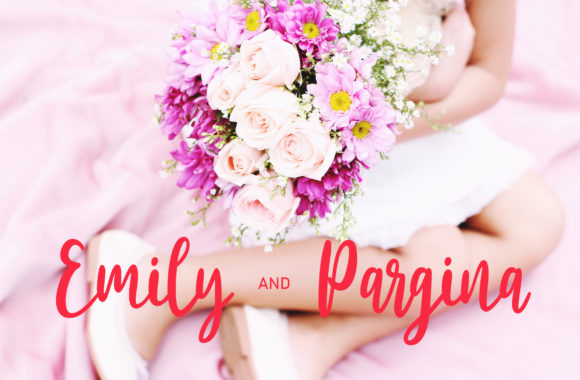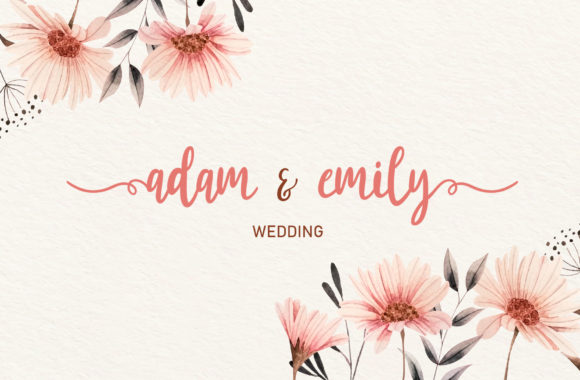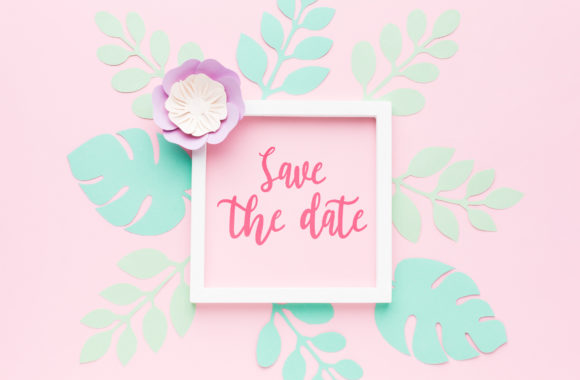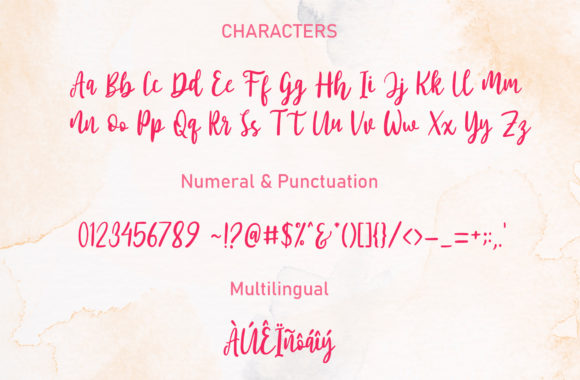
About One and Only Font
One And Only is a modern handwritten font with heart swashes. Fall in love with its authentic feel and use it to create gorgeous wedding invitations, beautiful stationary art, eye-catching social media posts, and beautiful greeting cards.